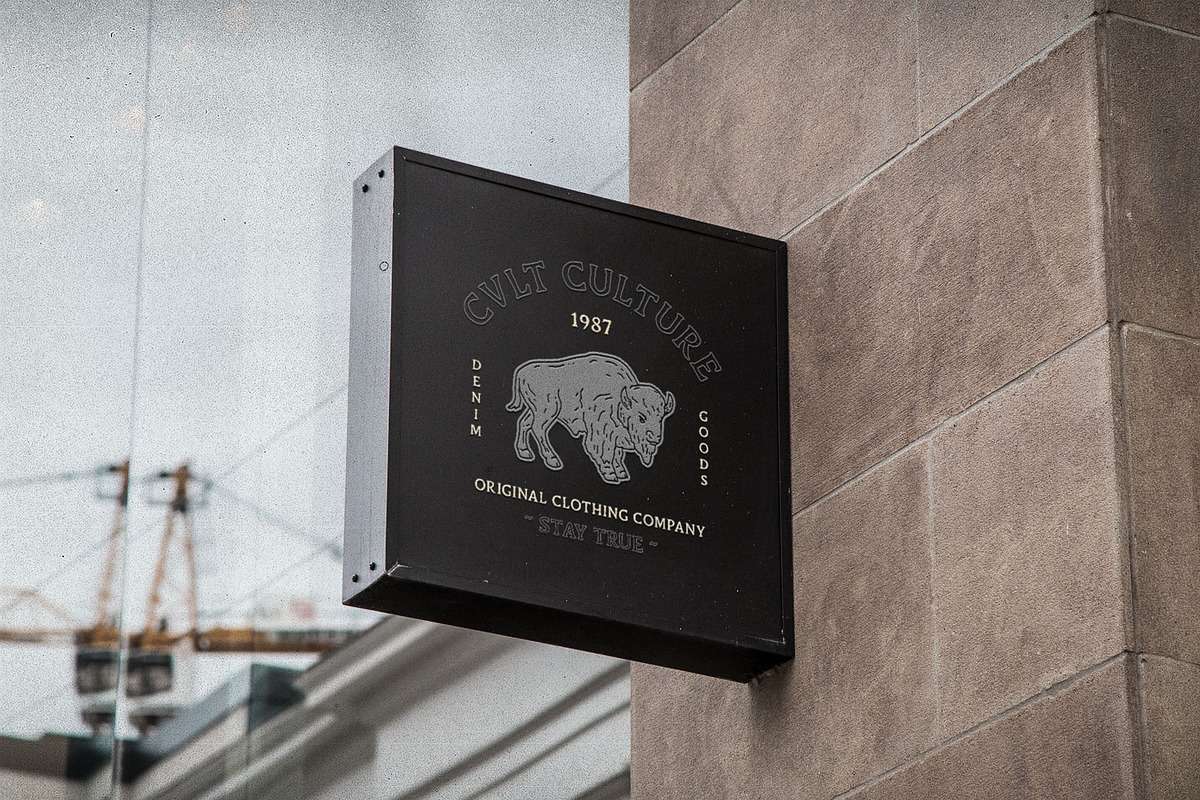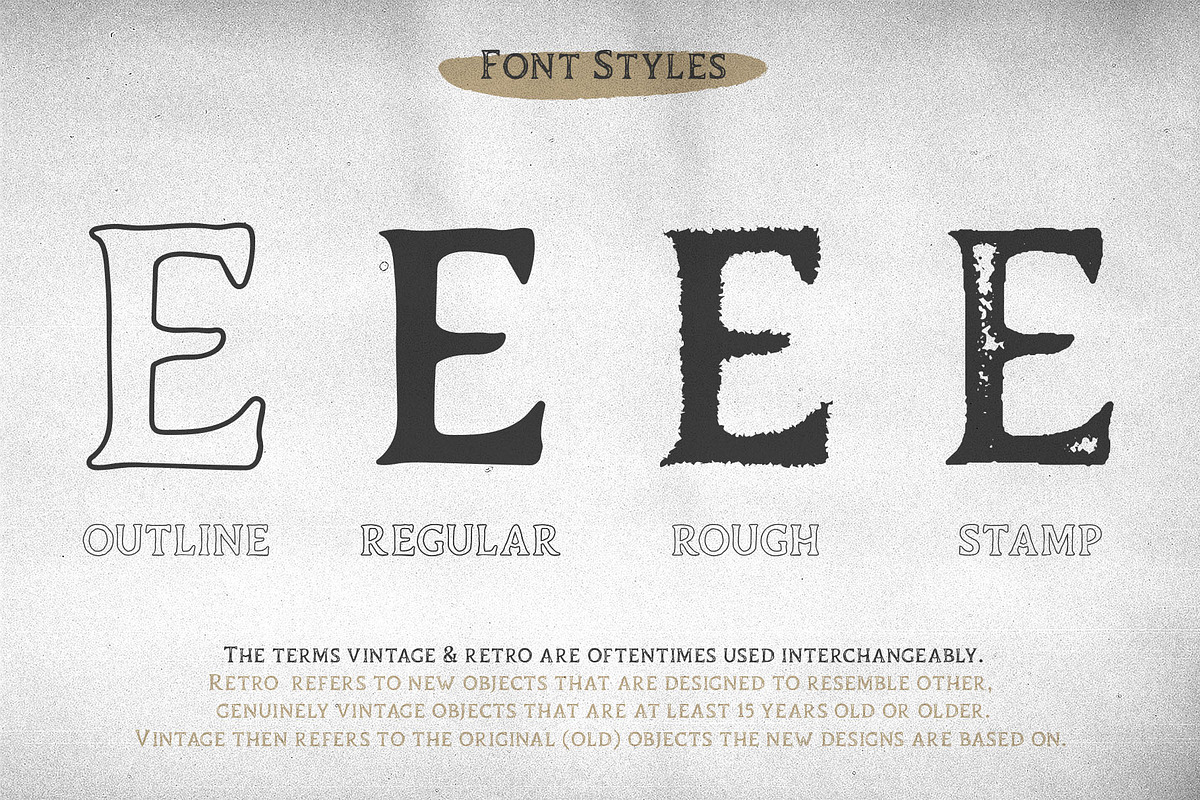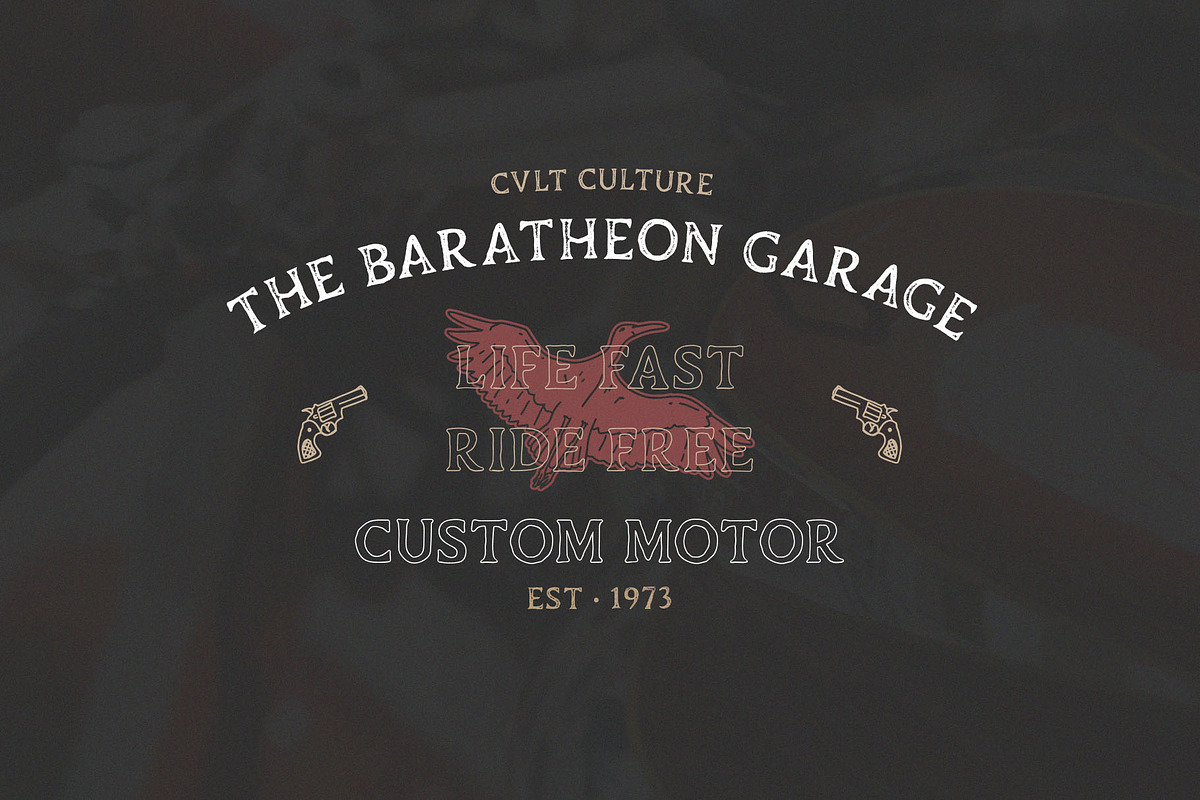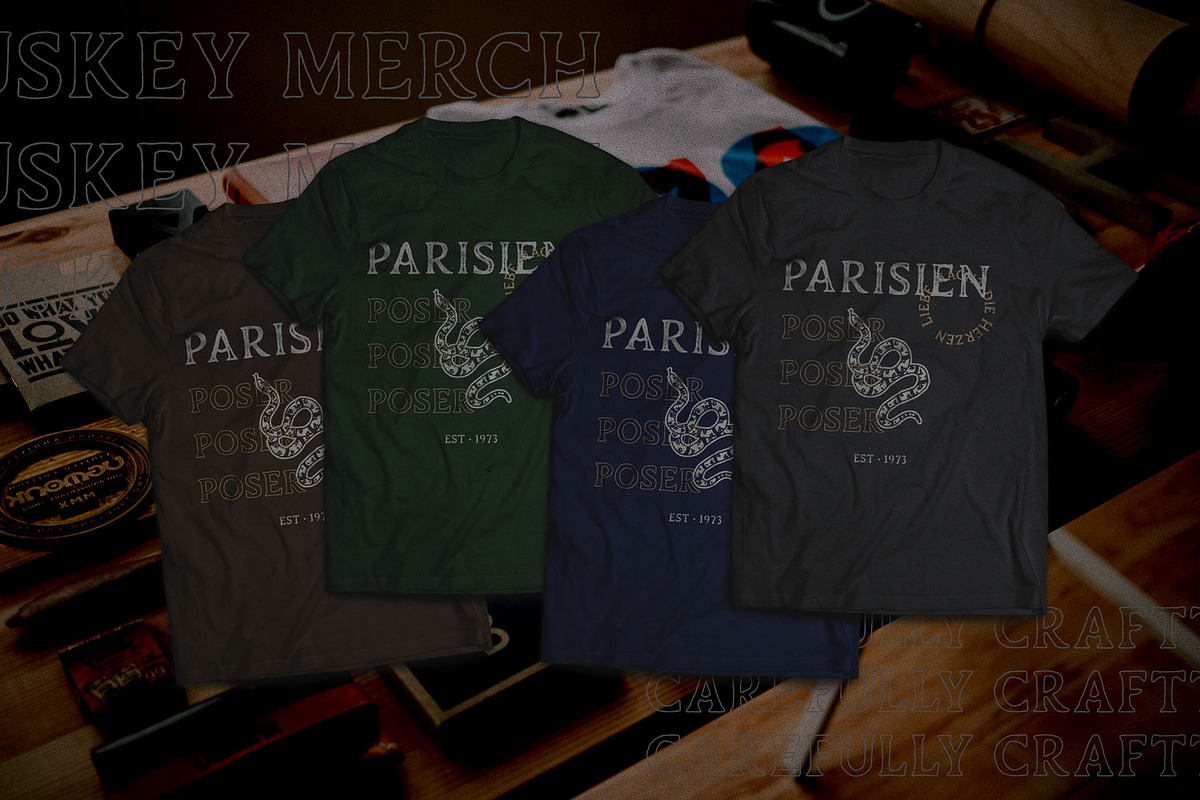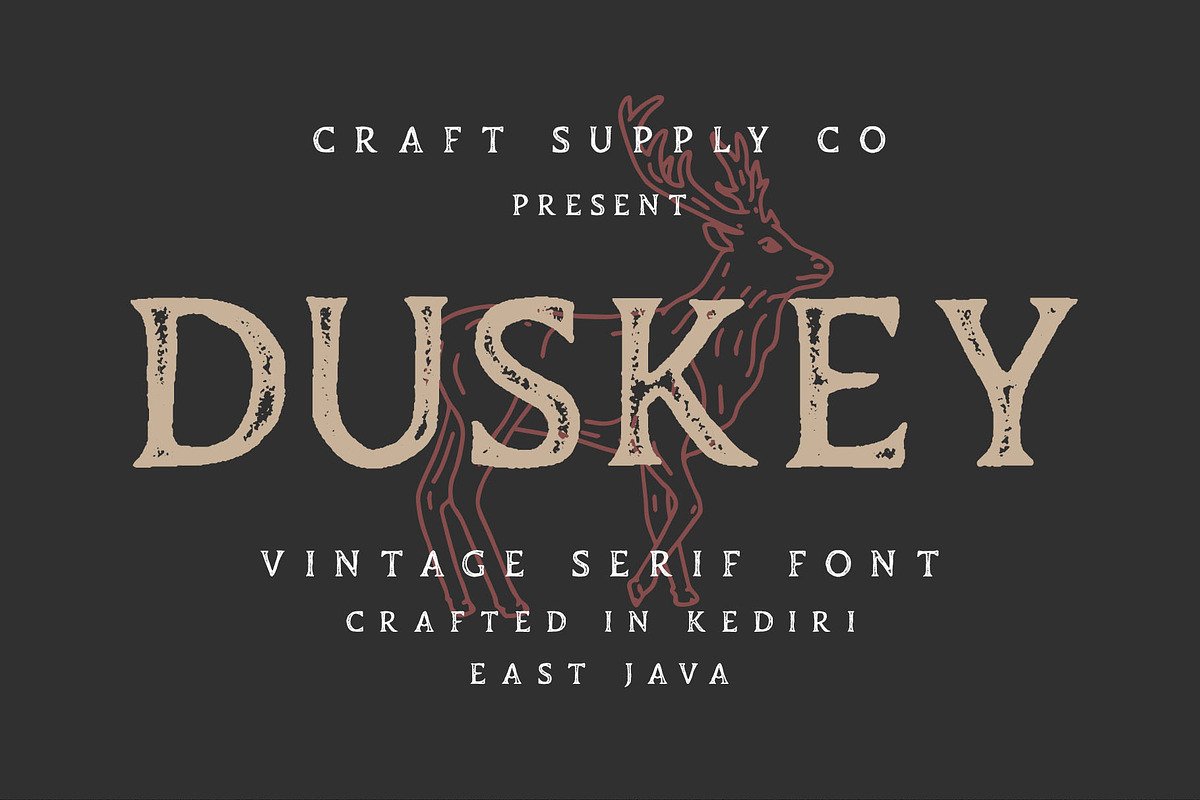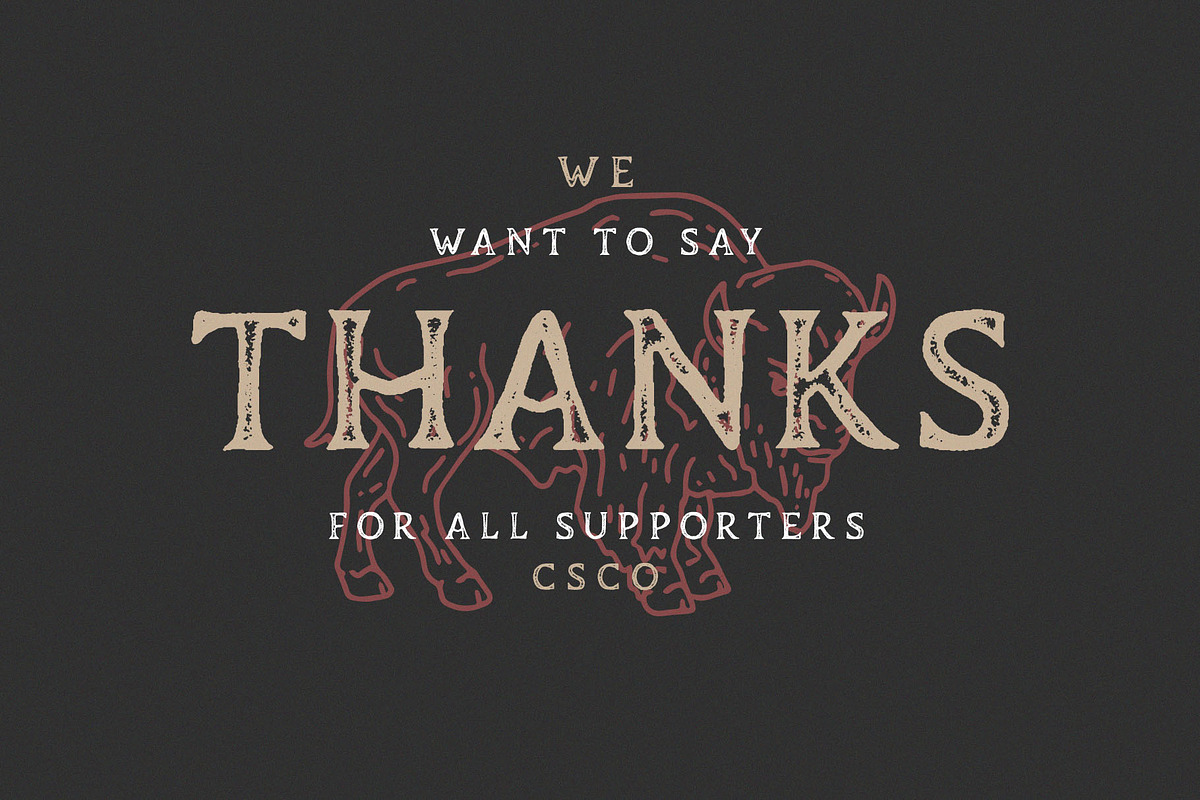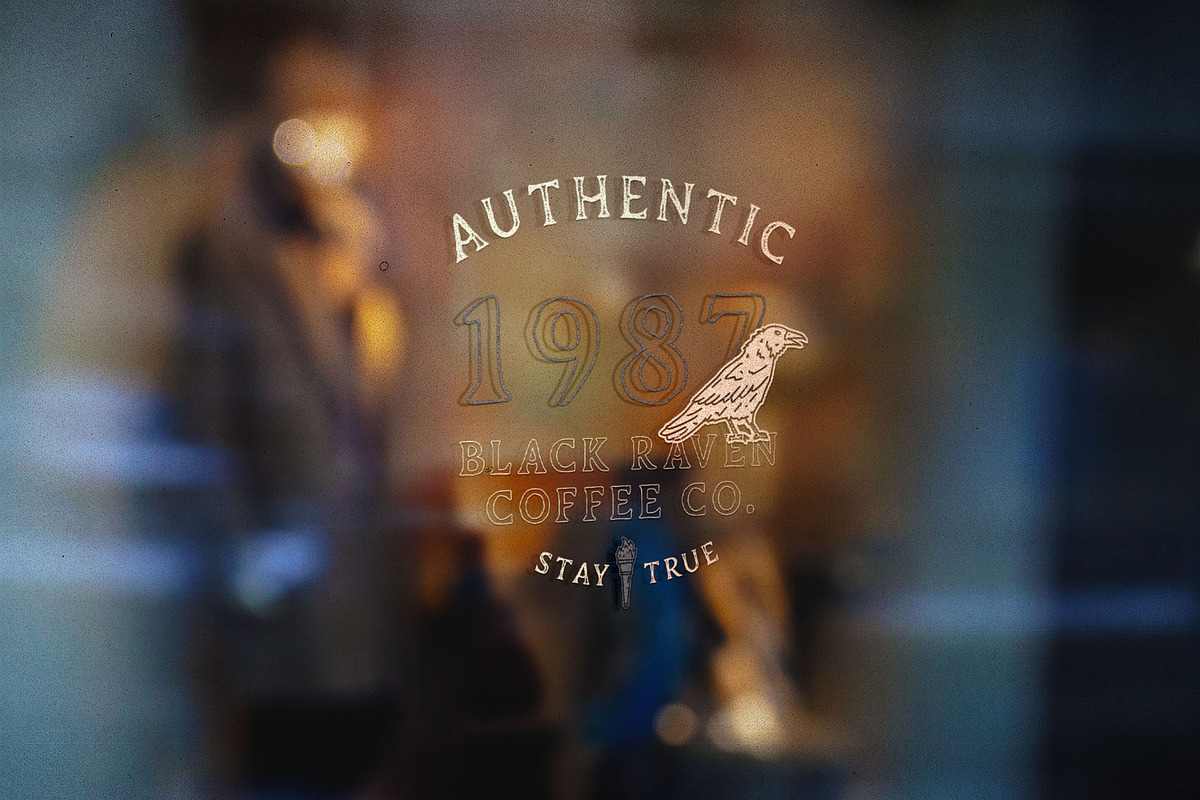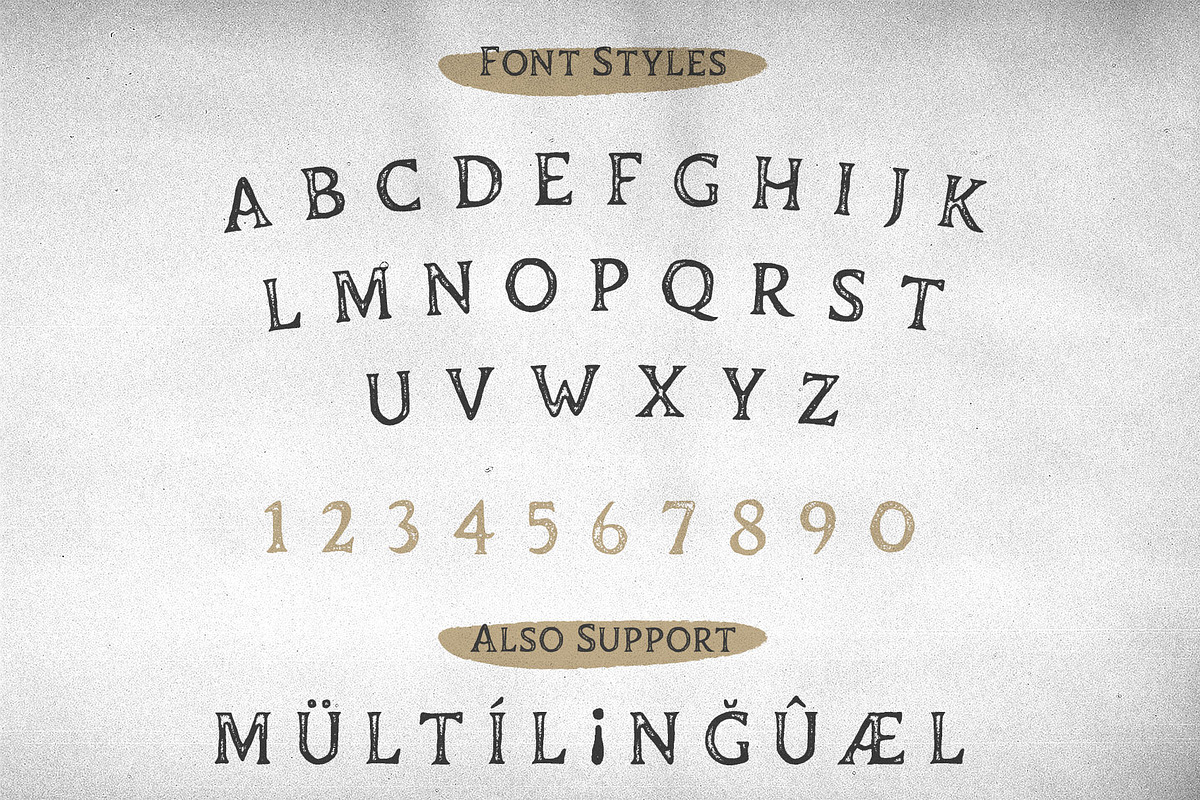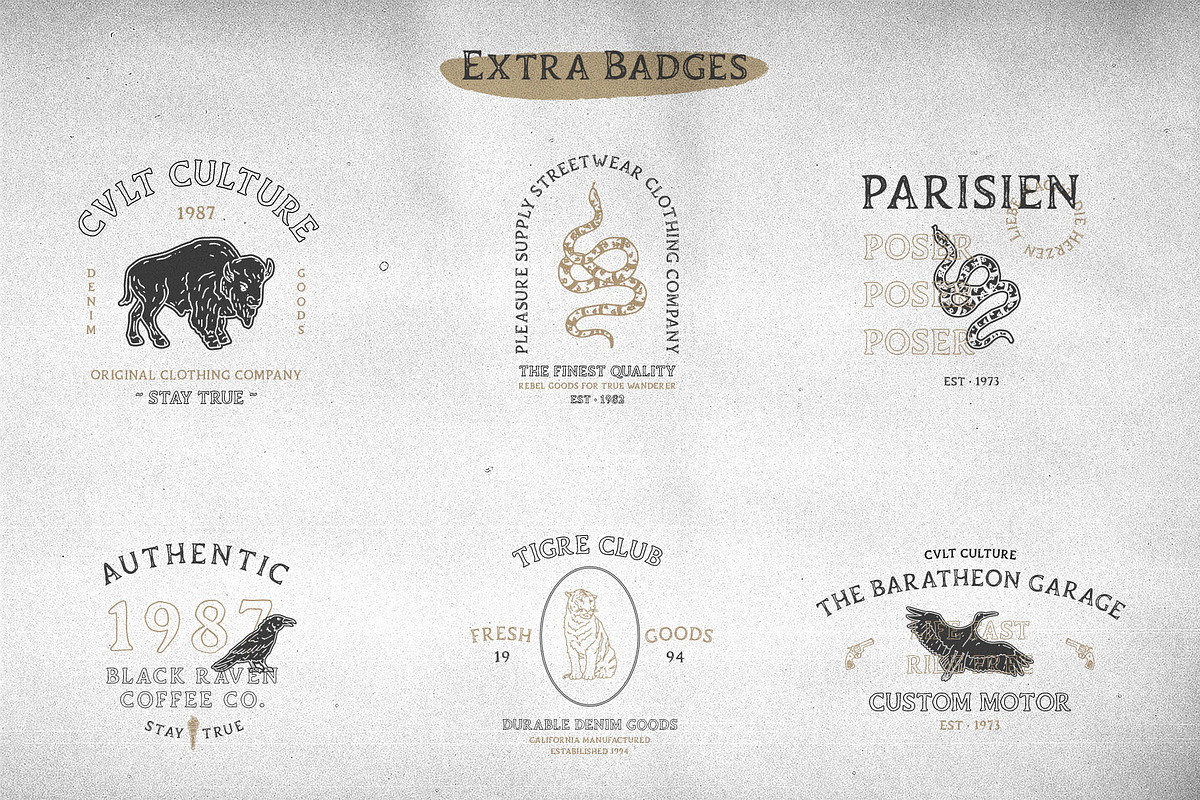
Duskey - Vintage Serif Font + Extras
Introducing Duskey Font Family + Extras includes 4 Style Fonts. It can be used to create almost all types of design projects like print materials. Just use your imagination and some graphic design set in Extras, your project will become more alive and look great than ever with one of the Duskey Font.
You want to make a greeting card or a package design, or even a brand identity, craft design, any DIY project, book title, wedding font, pop vintage design, retro design or any purpose to make your art / design project look pretty and trendy? Feel free to play with all style of this font!
- Duskey Regular
- Duskey Outline
- Duskey Rough
- Duskey Stamp
- All Caps Fonts
- Accents (Multilingual characters) (AÀÁÂÃÄÅCÇDÐEÈÉÊËIÌÍÎÏNÑOØÒÓÔÕÖUÙÜÚÛWYÝŸỲŸÆŒßÞ)